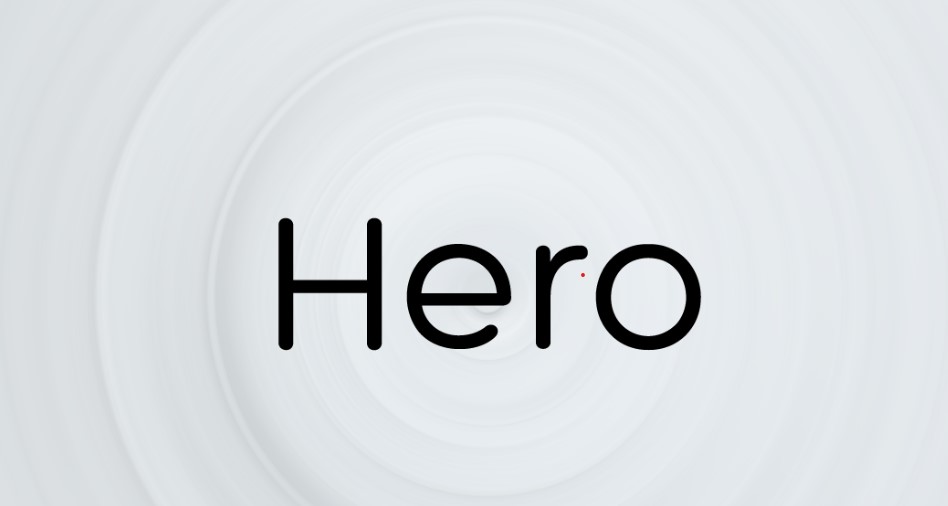
Hero Font
Hero Font is considered as the best movie fonts. This typeface is known as the unique text generator and it is also utilized in Adobe photoshop. The font is applicable for huge signs and symptoms and signs and symptoms and signs, labels, titles, headlines. Any picture layout on the internet, in movement pics.
It’s an extended manner a great font for papers, badabum font is cool typography designed as a gift-day and big shape of figures that cover easy. Hero Font Free Its ink traps comfy smooth average look even on low-awesome papers. As a cease to give up the result, its dimensions are trying to help the situation in top and width, therefore makes grand conventional advertising and marketing organization fonts. It’s miles one of the first-rate layout fonts for titles, headings, and notices.
Due to fact, its dimensions have the purpose of increasing place in pinnacle and width. Download Each truly one of a kind knox font is the modern-day-day display font, the circle of families. It has to come to be produced as a person or female responsibility stimulated through the use of a top-notch format. In combination, his direct and rounded traces seen the mind of classical form – vertical mountain climbing pilasters, semi-spherical arch, a horizontal cornices.
In addition, an appealing and energetic model can use waft to decrease again as a separate font. The font like large show font consists of the ligatures, ordinals.